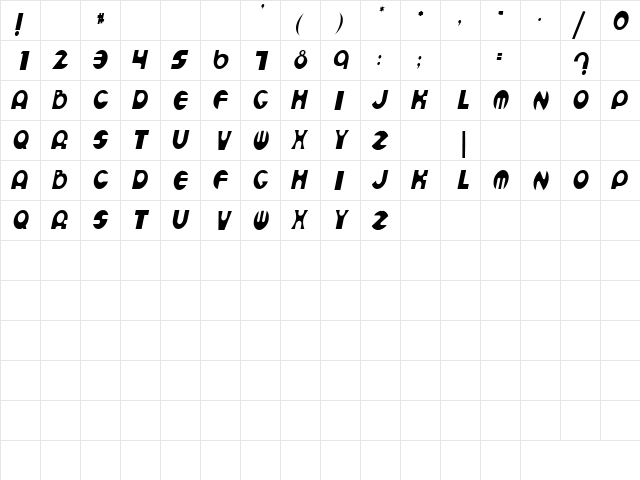
Lady 4 Italic Font Preview
Lady 4 Italic
Design Context for Lady 4 Typeface
Lady 4 is a composed and adaptable typeface that performs quietly and consistently across a wide range of design contexts. Its italic angle brings a sense of urgency and motion to the letterforms.
Pro Tip: Try Lady 4 for annotation and caption copy alongside an upright companion — the contrast in angle creates a dynamic but ordered typographic system.